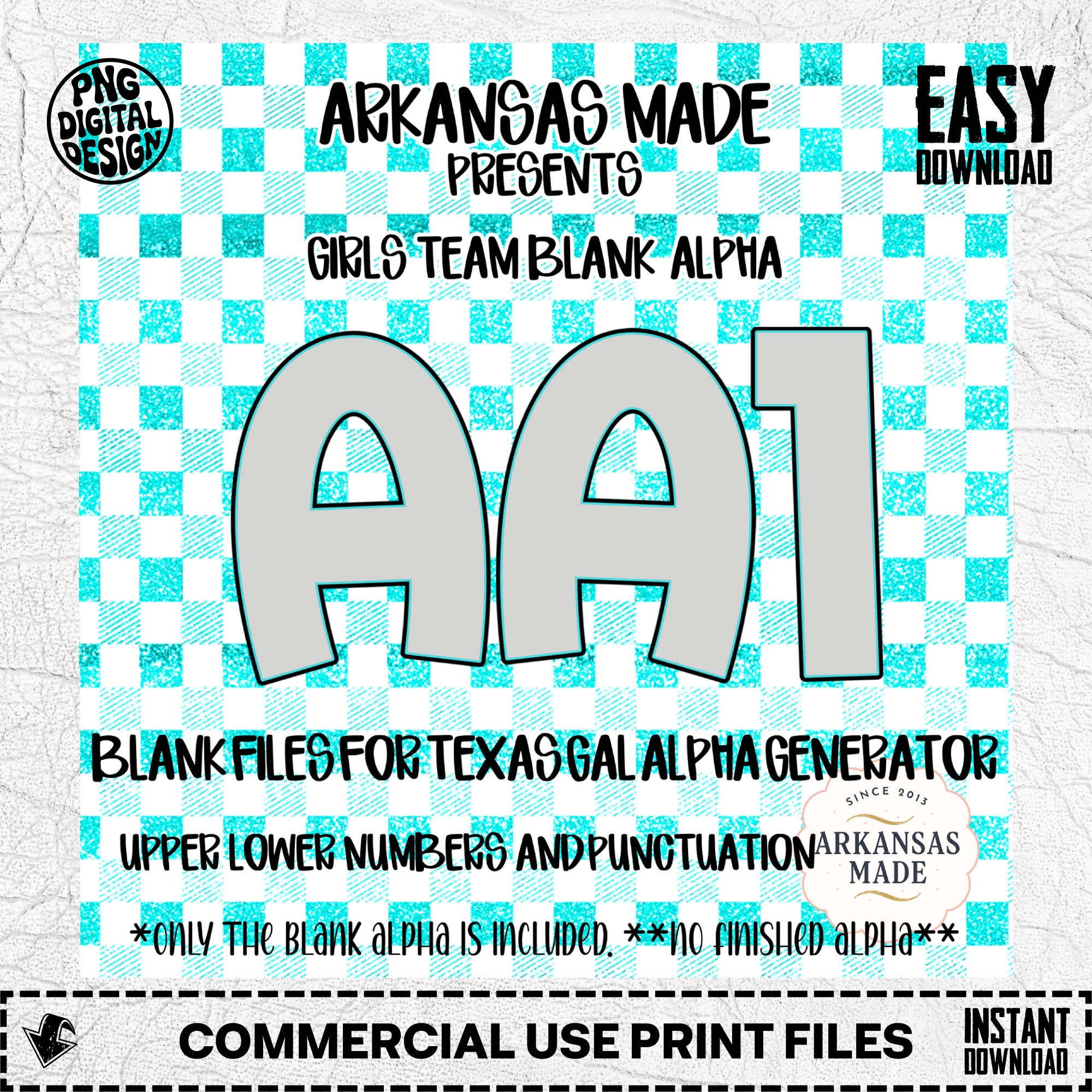
Unlock endless customization with this Blank Fillable Alpha Set, perfect for girls team designs, sports spirit wear, and personalized crafting projects. This digital download includes upper, lower, numbers, and punctuation. Empower your creative projects with this versatile alpha kit designed for crafters, small business owners, and DIY enthusiasts. Easily create custom shirts, tumblers, decals, and more for team events, school spirit, or unique handmade gifts. Ideal for anyone looking for a clean, outline font to fill with their own patterns and textures.